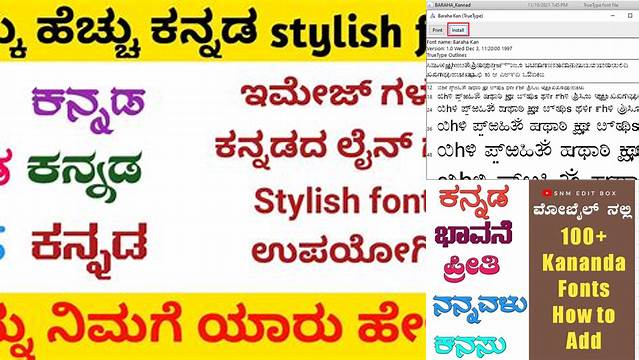
Effortlessly Change Kannada Fonts Online: A Comprehensive Guide
Hey guys! Ever found yourself wrestling with Kannada fonts online, wishing you could easily swap them out for something different? You're not alone! Changing Kannada fonts online can sometimes feel like navigating a maze, but fear not. This comprehensive guide is here to break down everything you need to know, making the process a breeze. We'll dive into various methods, explore the best tools, and ensure you can transform your Kannada text with just a few clicks. Whether you're a seasoned blogger, a student working on an assignment, or simply someone who loves experimenting with different fonts, this article has got you covered. Let's get started and make those Kannada fonts sing!
1. Understanding the Basics of Kannada Font Conversion Online
Alright, before we jump into the nitty-gritty, let's quickly cover the basics. Kannada fonts, like any other language's fonts, are essentially digital representations of the characters that make up the Kannada script. The variety in these fonts stems from different designs, styles, and aesthetics, each catering to various purposes – from formal documents to creative designs. When you're looking to change Kannada fonts online, you're essentially instructing a tool or software to replace one set of character representations with another. This conversion is crucial for several reasons: it can improve readability, enhance the visual appeal of your text, or simply match the overall aesthetic of your project. This process often involves mapping characters from one font to their corresponding counterparts in another, ensuring that the meaning and intent of the text remain intact. The challenge lies in the compatibility and support for various Kannada fonts across different platforms and devices. Not all fonts are created equal, and some may not render correctly on certain systems, leading to garbled text or missing characters. This is where the use of online tools and converters becomes essential. These tools are designed to handle the complexities of font conversions, ensuring that your text looks exactly as you intend, no matter where it's viewed. Selecting the right font and converter can significantly enhance your online experience with Kannada, ensuring seamless communication and effective content presentation. So, let's dive deeper into the tools that help you in your quest to change Kannada fonts online.
4. Troubleshooting Common Issues with Kannada Font Conversions
Okay, let's talk about potential hiccups. While the process of changing Kannada fonts online is generally straightforward, you might run into a few issues along the way. Don't worry; most of these problems have simple solutions. One common problem is incorrect character rendering. This occurs when some characters in the original font don't have a direct equivalent in the new font, or when the tool has trouble handling certain character encodings. To fix this, try using a different font or a different conversion tool. Make sure the tool you're using supports the specific Kannada font you're trying to use. Another issue is font compatibility. Not all fonts are created equal, and some fonts may not render correctly on all devices or platforms. If you're experiencing this, try downloading the font and installing it on your device. This can often resolve compatibility problems. If you're still facing problems, it's also a good idea to check the encoding of your text. Ensure that your text is encoded in a format that is compatible with the tool and the fonts you're using. UTF-8 is usually a safe bet. Lastly, remember to update your browser and operating system. Older versions may not support the latest Kannada fonts or conversion tools. Regularly updating your system can help ensure smooth font conversions. If you're still stuck after trying these solutions, don't hesitate to reach out to online forums or support communities. There are plenty of people out there who can help you troubleshoot your specific problem. Remember that the key to successful font conversion is to be patient and persistent. By trying different approaches and seeking help when needed, you'll be able to overcome any challenges and successfully change Kannada fonts online.
5. Selecting the Right Kannada Font: Factors to Consider
Choosing the right Kannada font is crucial for effectively communicating your message. Several factors should guide your selection. First, consider your project's purpose. Is it a formal document, a casual blog post, or a creative design? Different fonts convey different tones. For formal documents, opt for clean and legible fonts like Nudi or Tunga. For more casual content, you can experiment with more expressive fonts. Readability is another important factor. Your chosen font should be easy to read at various sizes and on different devices. Avoid overly ornate fonts that might strain the eyes. Ensure that the font supports all the characters you need, including any special symbols or accents. Consider the target audience. Who will be reading your text? The age, cultural background, and reading habits of your audience can influence your font choice. Younger audiences may appreciate more modern fonts, while older audiences may prefer more traditional ones. Think about the overall design of your project. Does the font complement the other design elements, such as images, colors, and layout? The font should blend seamlessly with the other elements to create a cohesive visual experience. Check the font's licensing. Make sure you have the right to use the font for your intended purpose. Some fonts are free for personal use but require a license for commercial projects. Consider the font's availability. Does the font render correctly on all devices and platforms? It's important to choose a font that is widely supported to avoid compatibility problems. Finally, don't be afraid to experiment. Try out different fonts and see how they look with your text. You can often find previews online or in font selection tools. Finding the perfect font is often a process of trial and error. By considering these factors, you can confidently select the right Kannada font for your project and make sure you are successfully changing the font online.
6. Kannada Font Styles and Their Impact on Readability
Let's talk about style, shall we? Kannada fonts come in various styles, each impacting readability and the overall aesthetic of your text. Understanding these styles can help you make informed decisions when you change Kannada fonts online. The most common styles include serif, sans-serif, and display fonts. Serif fonts have small strokes (serifs) at the end of each letter, which can enhance readability in printed documents. Examples include Nudi and Tunga. These fonts offer a classic and formal feel. Sans-serif fonts, on the other hand, lack these strokes, providing a cleaner and more modern look. They often work well for digital displays and headings. Examples include Bharathi and Kedage. Display fonts are designed for headlines and titles, offering a more creative and eye-catching appearance. They can range from elegant scripts to bold, decorative fonts. The choice of style significantly impacts readability. Serif fonts can improve readability in long blocks of text, while sans-serif fonts may be easier to read on screens. Display fonts are ideal for grabbing attention but can be less suitable for body text due to their less uniform appearance. Besides style, other characteristics such as weight (bold, regular, light) and spacing (condensed, normal, expanded) can influence readability. Heavier fonts tend to draw more attention, while lighter fonts are easier to read in large blocks of text. Spacing affects the overall visual density of the text. Experimenting with different styles, weights, and spacing is crucial to finding the perfect combination for your specific needs. Consider the context in which your text will be used. A formal report might benefit from a serif font, while a website design might work better with a sans-serif font. Remember, the primary goal is to ensure that your text is easy to read and visually appealing. Keep these factors in mind when you're trying to change Kannada fonts online to ensure the best readability.
7. Best Practices for Using Kannada Fonts in Web Design
Alright, let's talk web design! When integrating Kannada fonts into your website, there are several best practices to ensure a seamless and user-friendly experience. First, ensure font compatibility. Use web fonts that support Kannada script and are compatible with different browsers and devices. Google Fonts offers a wide range of Kannada fonts. Consider using font embedding techniques. Embedding fonts allows your website to display the fonts consistently across all devices, regardless of whether the user has the font installed on their system. Use CSS to specify the font. Employ the 'font-family' property in your CSS to define the font for your Kannada text. This allows you to control the font's appearance and ensure consistent rendering. Prioritize readability. Choose fonts that are easy to read, especially for body text. Use a font size and line spacing that enhances readability. Aim for a font size of at least 16 pixels for body text. Optimize for different devices. Ensure that your website is responsive and that the Kannada fonts display correctly on various screen sizes. Test your website on different devices and browsers to catch any potential display issues. Consider accessibility. Use fonts that are accessible to users with disabilities. Avoid using overly decorative fonts that might be difficult to read. Use sufficient color contrast between the text and the background. Regularly update your fonts. Keep your fonts updated to ensure compatibility with the latest browsers and devices. Regularly test the font rendering on your website. Test your website with different browsers and devices. Regularly checking how the Kannada fonts change online will help you stay on top of problems.
8. Converting Between Different Kannada Font Formats
Switching between Kannada font formats can be a necessity. When you need to change Kannada fonts online, understanding different font formats is essential. The most common font formats are TTF (TrueType Font) and OTF (OpenType Font). TTF fonts are older and simpler, while OTF fonts are more advanced, often including features like ligatures and expanded character sets. Conversion might become necessary if a particular tool or software only supports one format or if you need to ensure compatibility across various devices. Thankfully, many online converters allow you to convert between TTF and OTF formats. These converters typically require you to upload your font file and then select the desired output format. Be mindful of potential issues during the conversion process. While most fonts convert seamlessly, some advanced features or character sets might not be perfectly preserved. Always check the converted font to ensure that all characters render correctly. It's also important to ensure that the conversion doesn't violate any licensing agreements. Before converting, review the terms of use for the font to confirm that you have the right to convert and redistribute it. Some online tools may also convert between other formats like WOFF (Web Open Font Format), which is specifically designed for use on the web. When changing Kannada fonts online, knowing these formats and using the right conversion tools ensures that you can work with any Kannada font.